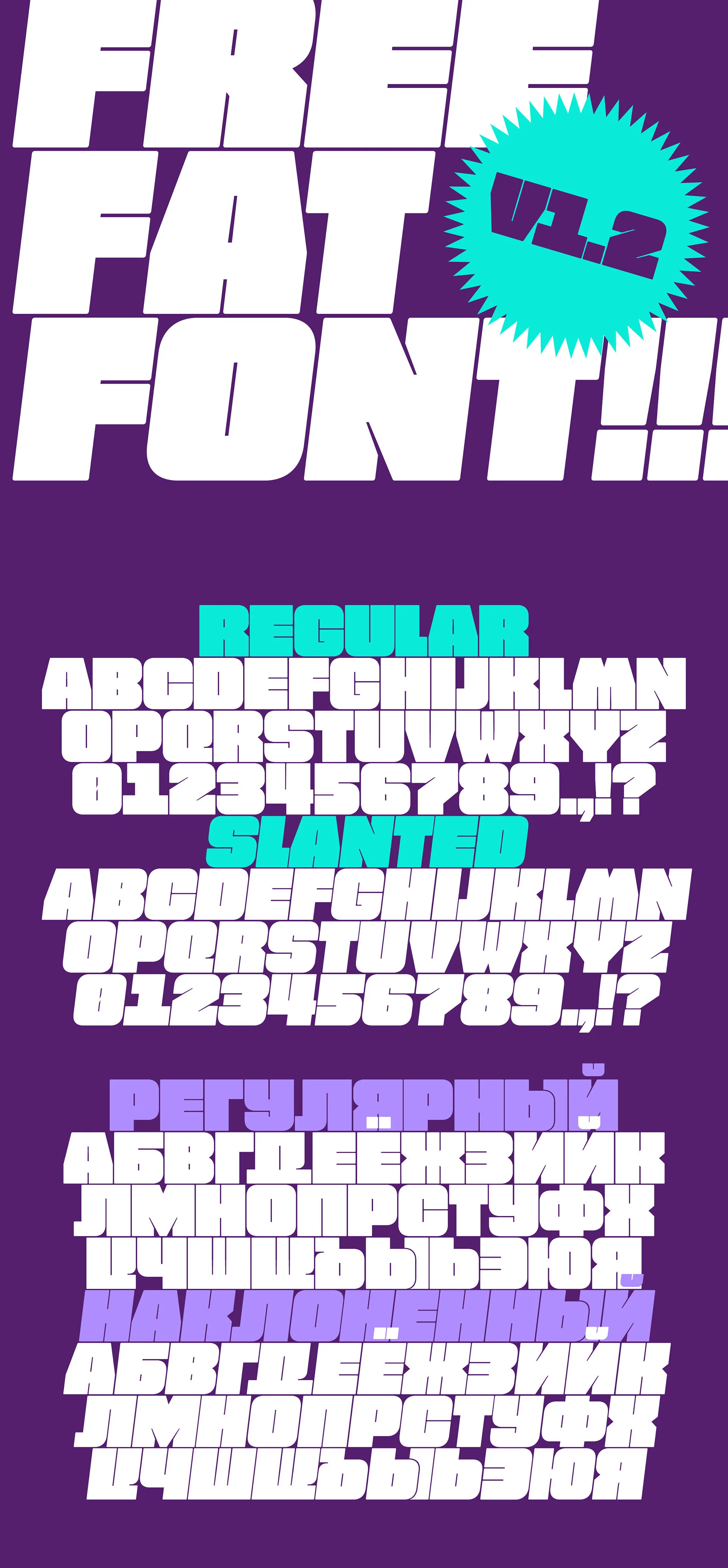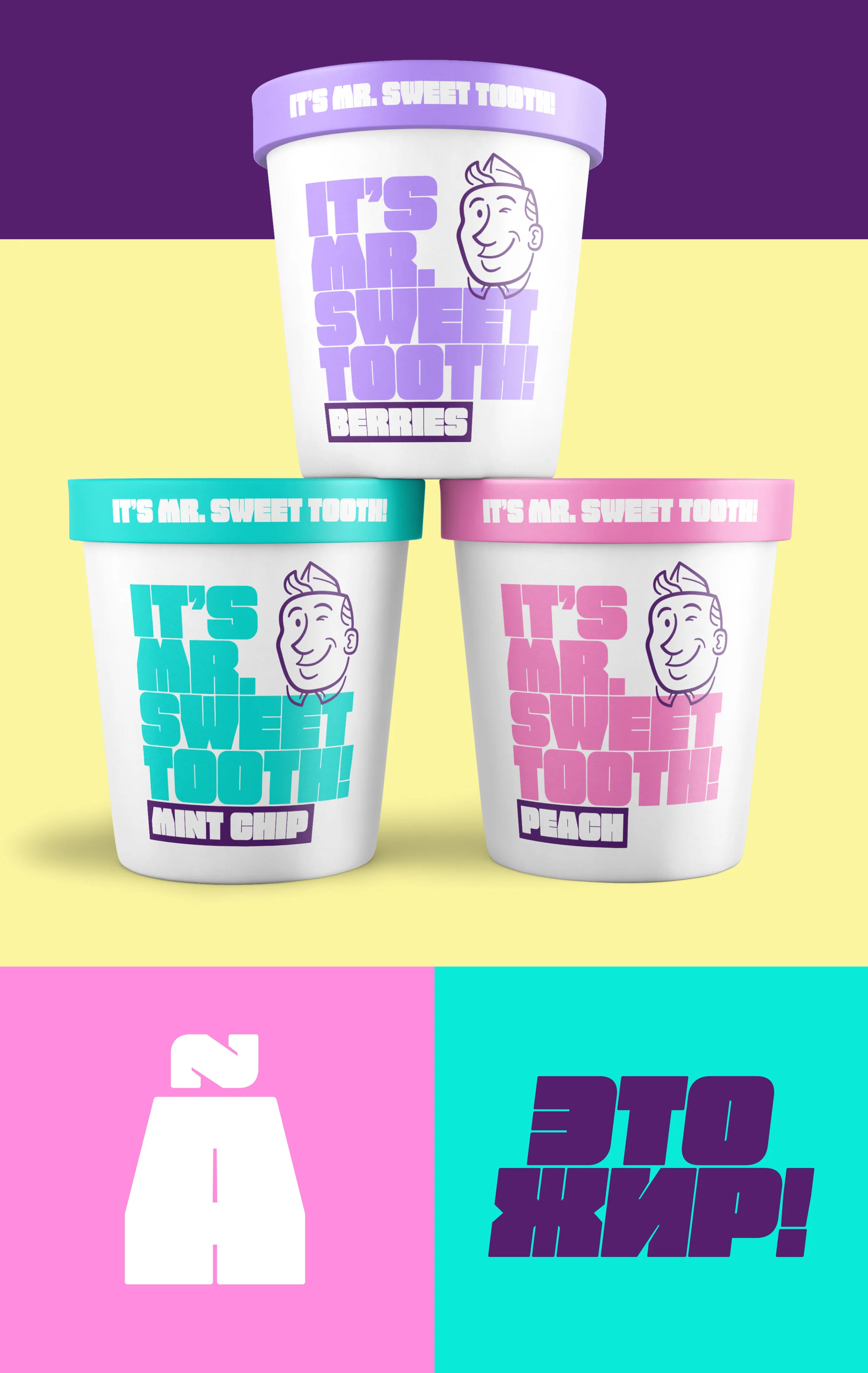
Free Fat Font V.1.2 - Free Extremely Heavyweight Typeface
Free Fat Font was created by Thom Niessink, and is exactly what you'd expect. It's Fat and it's free.
This font has an extremely heavy weight and many unique characters. Perfect for big titles, advertising, labelling, packaging and anything that needs a big impactful typeface. It also features multilingual characters for increased usability.
This free update adds Russian Cyrillic support. Thanks to Dmitry Sivukhin for the original drawings of the Cyrillic characters.